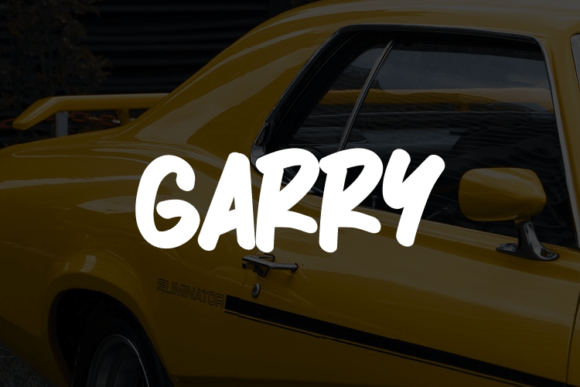
The Birth of a Bold New Era: Unveiling Garry Font
Imagine you’re brainstorming a marketing campaign for a trendy new car brand. You’re sipping your morning coffee, surrounded by scribbled notes, and a spark of inspiration hits. You envision a bold, eye-catching logo that screams modernity and sophistication. In that moment, you’re on the hunt for the perfect font to bring your vision to life. That’s where Garry Font comes in – a game-changing, authoritative display font designed to make a lasting impression.
Garry Font is more than just a font – it’s a statement piece. With its clean, modern silhouette and distinctive character proportions, it’s the perfect choice for contemporary lifestyle marketing, creative logo design, and high-impact social media headers. Whether you’re a seasoned designer or just starting out, Garry Font is an invaluable addition to your toolkit, offering a unique blend of structure and personality that’s sure to elevate your designs.
Garry Font Key Features
- Unique Character Set: Garry Font features a unique character set that includes a wide range of symbols, icons, and glyphs, making it ideal for use in creative and design-focused applications.
- High-Quality Design: Garry Font is designed with high-quality typography in mind, featuring clean lines, elegant curves, and a sophisticated aesthetic that is sure to impress.
Garry Font Review
I’ve had the chance to play around with the Garry Font, and I’ve got some thoughts to share. ✨ One thing I love about this font is its versatility – it can work for both modern and vintage designs, depending on how you style it. The font has a certain nostalgic feel to it, which makes it perfect for projects that require a classic touch.
Another great thing about Garry Font is its legibility. It’s easy to read, even at smaller font sizes, making it suitable for body text, headings, and titles alike. The font also has a good range of weights, from light to bold, which gives you plenty of options for customization.
⚠️ While Garry Font has its strengths, it’s not without its limitations. One thing I’d like to see improved is the font’s consistency across different devices and screen sizes. In some cases, the font may appear slightly blurry or pixelated, especially on lower-resolution screens.
Overall, I think Garry Font is a solid choice for designers looking for a classic, versatile font. While it’s not perfect, its strengths make it a great addition to any design project. If you’re looking for a font that can work for a variety of designs, Garry Font is definitely worth considering.
- Classic, nostalgic feel
- Legible even at small font sizes
- Range of weights (light to bold)
- Can work for modern and vintage designs
Garry Font: A Practical Application Guide
Tip: Use Garry Font for headings and titles to create a unique and eye-catching design.
Tip: Use Garry Font for creating custom typography and graphics.
Tip: Use Garry Font for creating presentations and documents with a unique and modern look.
Garry Font is ideal for:
- Creating unique headings and titles.
- Designing custom graphics and typography.
- Adding a modern touch to presentations and documents.
Alternatives to Garry Font for Designers
Lato is a sans-serif font designed by Łukasz Dziedzic. It is a clean and modern font that is perfect for digital design, especially for headings and titles. Lato is more versatile than Garry Font, with a wider range of weights and styles available. It is also more readable on smaller screens and devices.
Montserrat is a sans-serif font designed by Julieta Ulanovsky. It is a geometric font that is inspired by the urban landscape of Buenos Aires. Montserrat is more condensed than Garry Font, making it perfect for use in tight spaces and for creating a sense of density. It is also highly legible on both digital and print media.